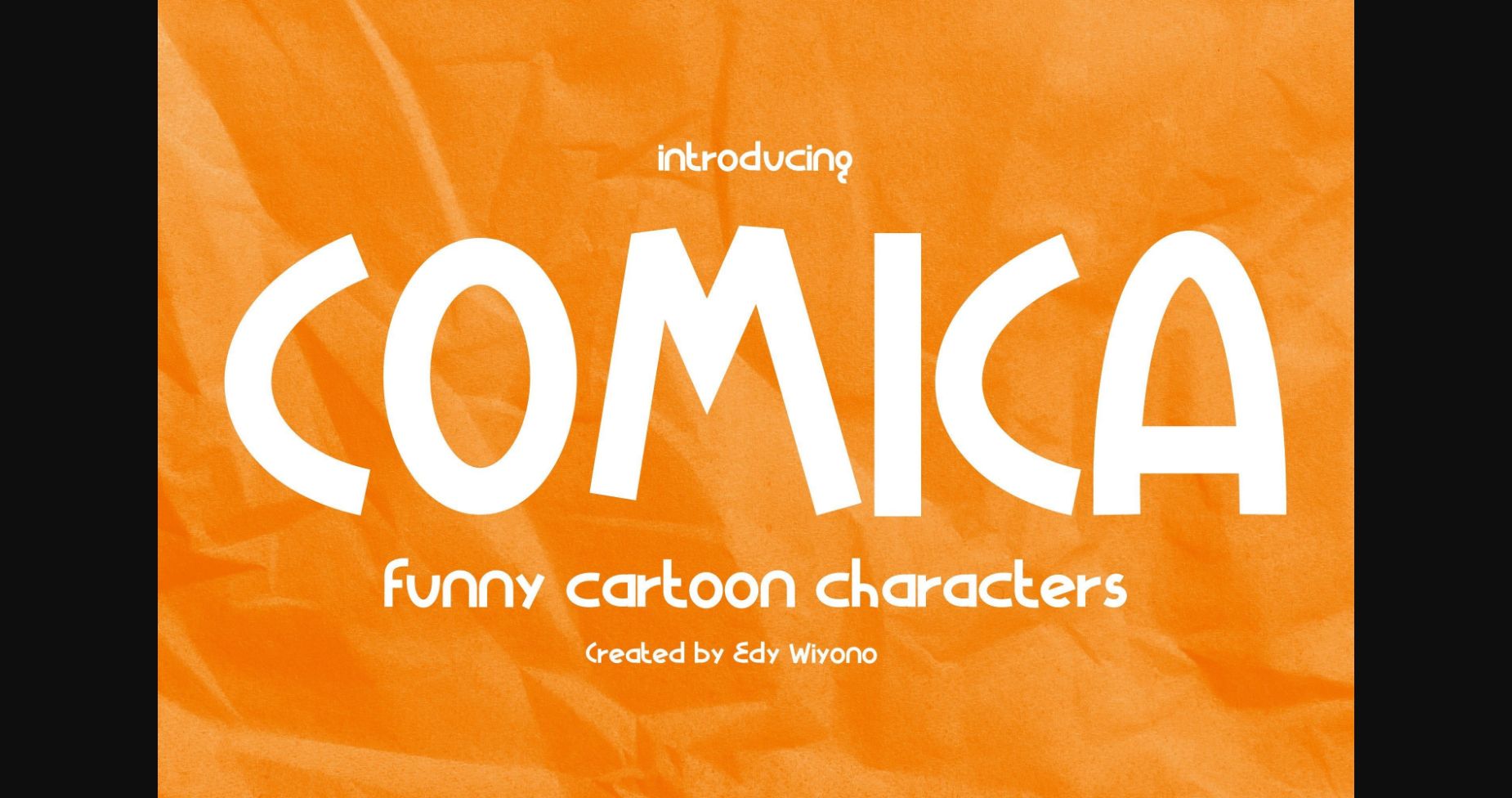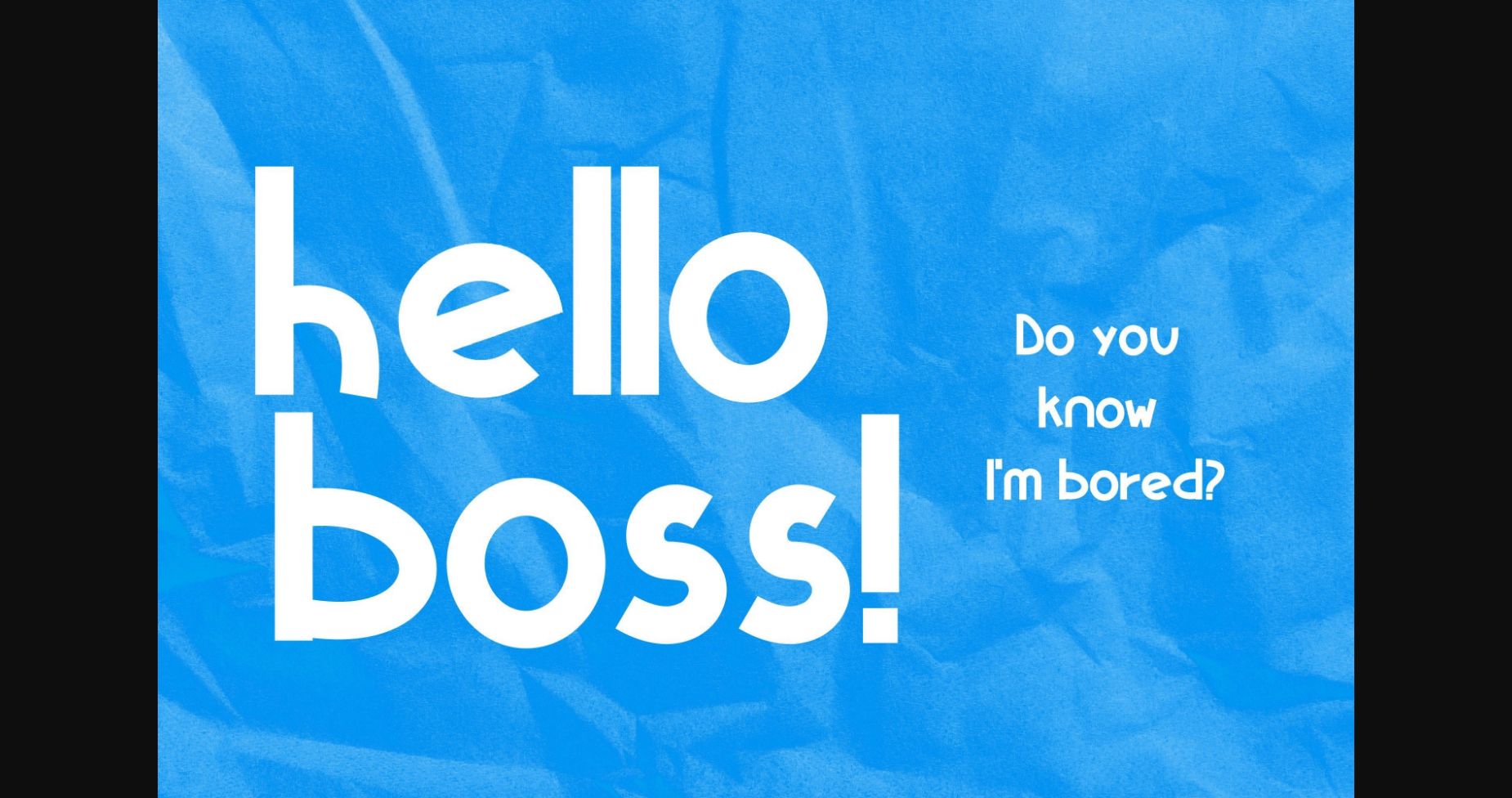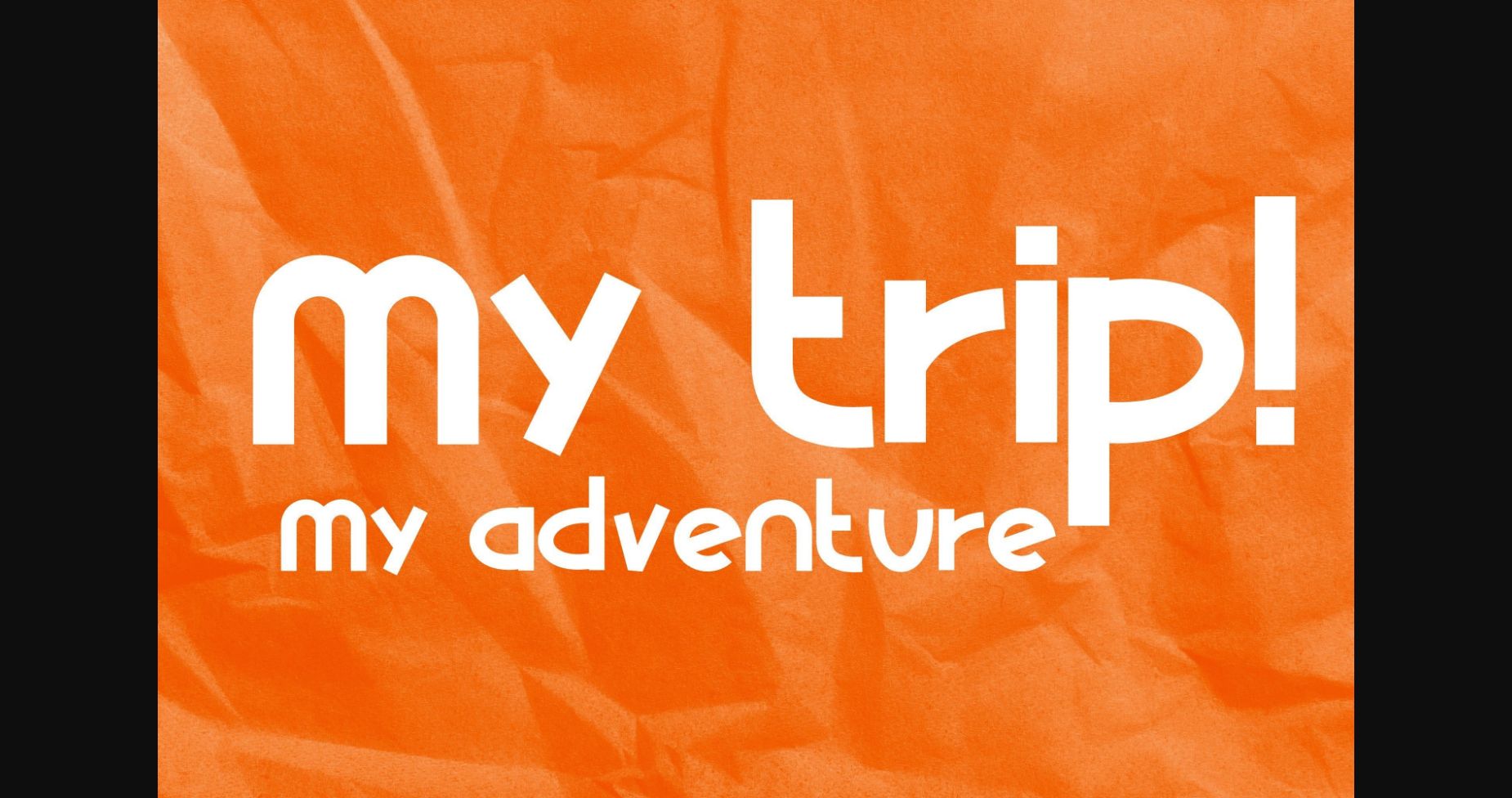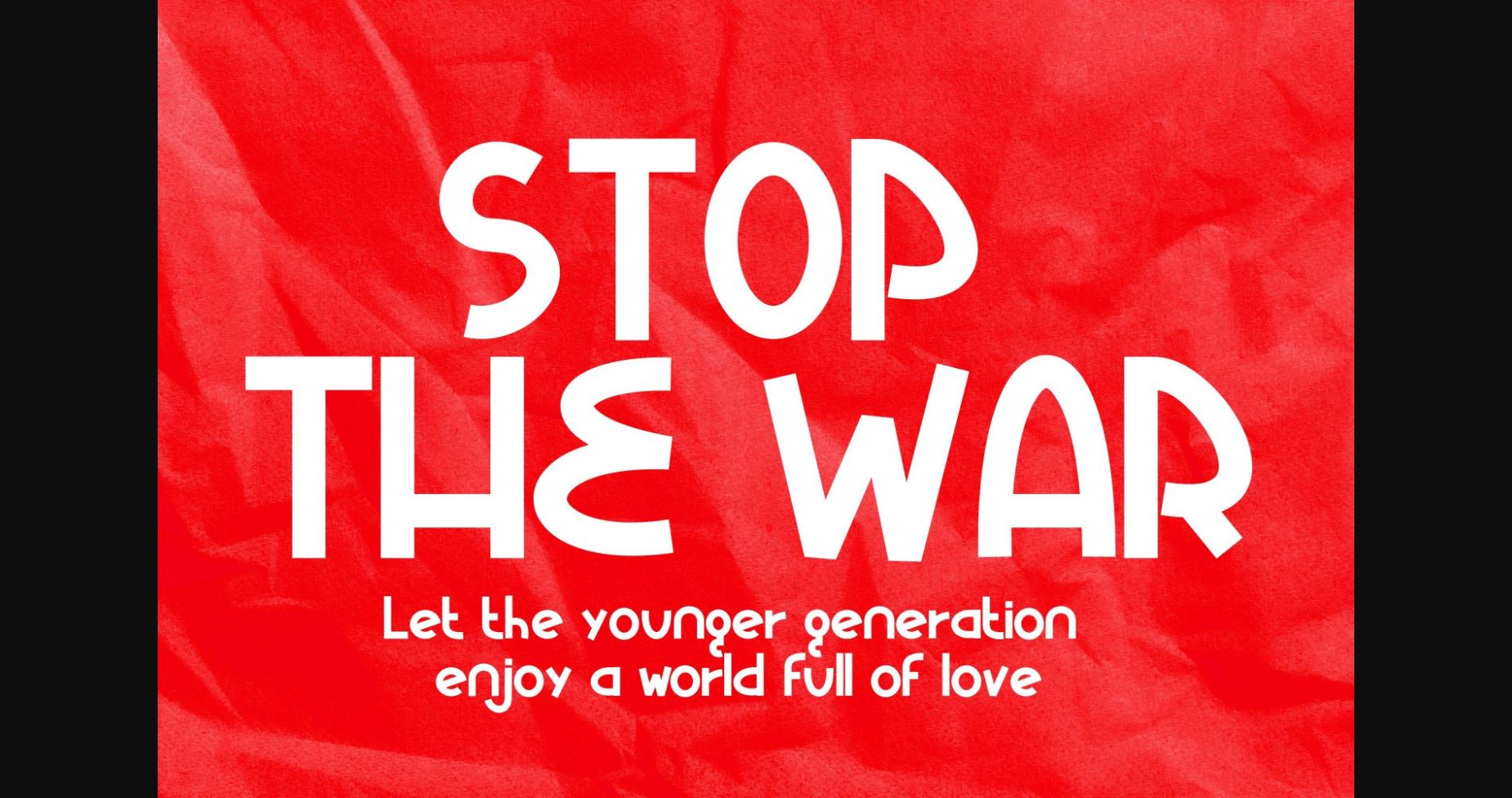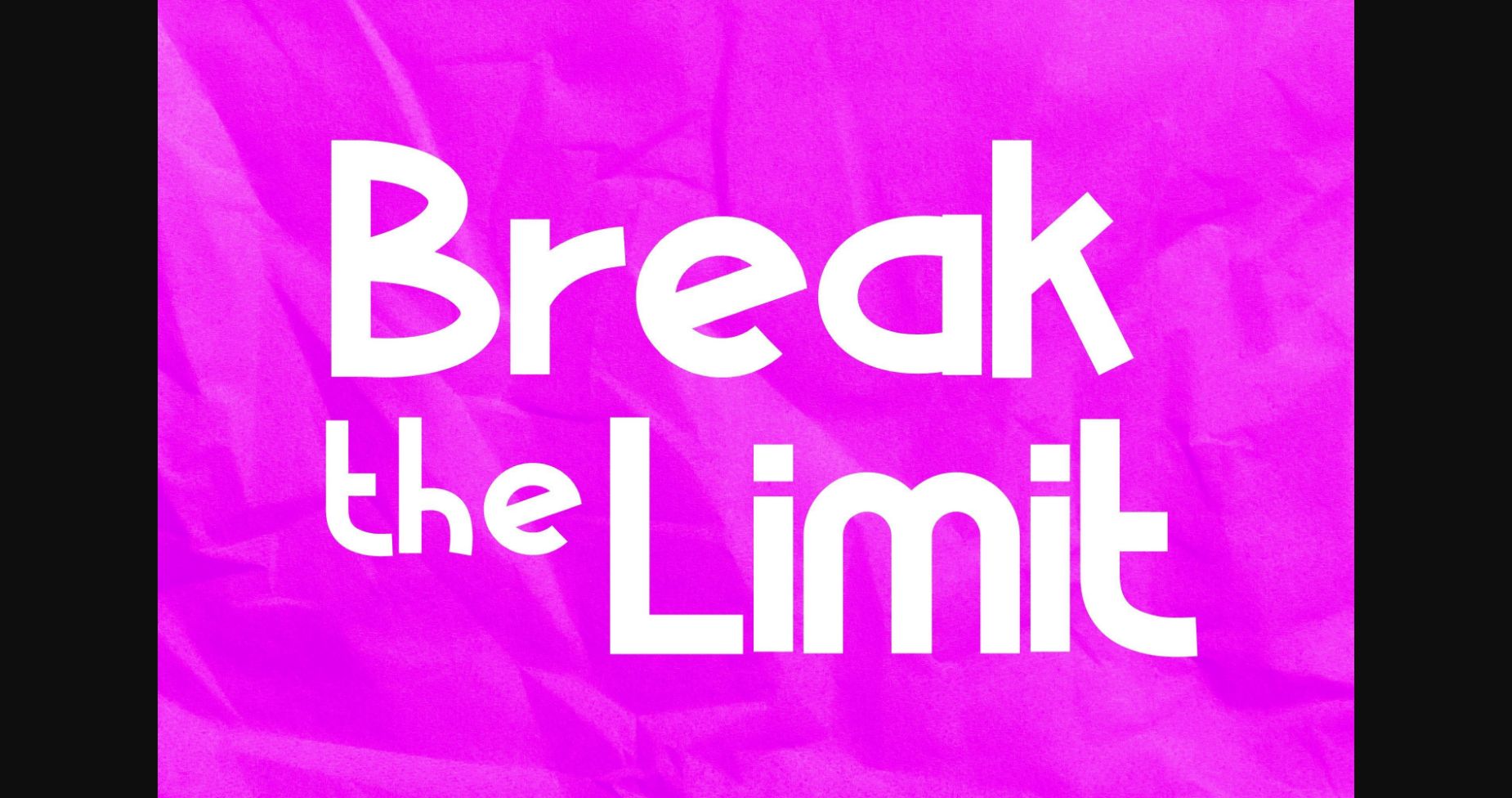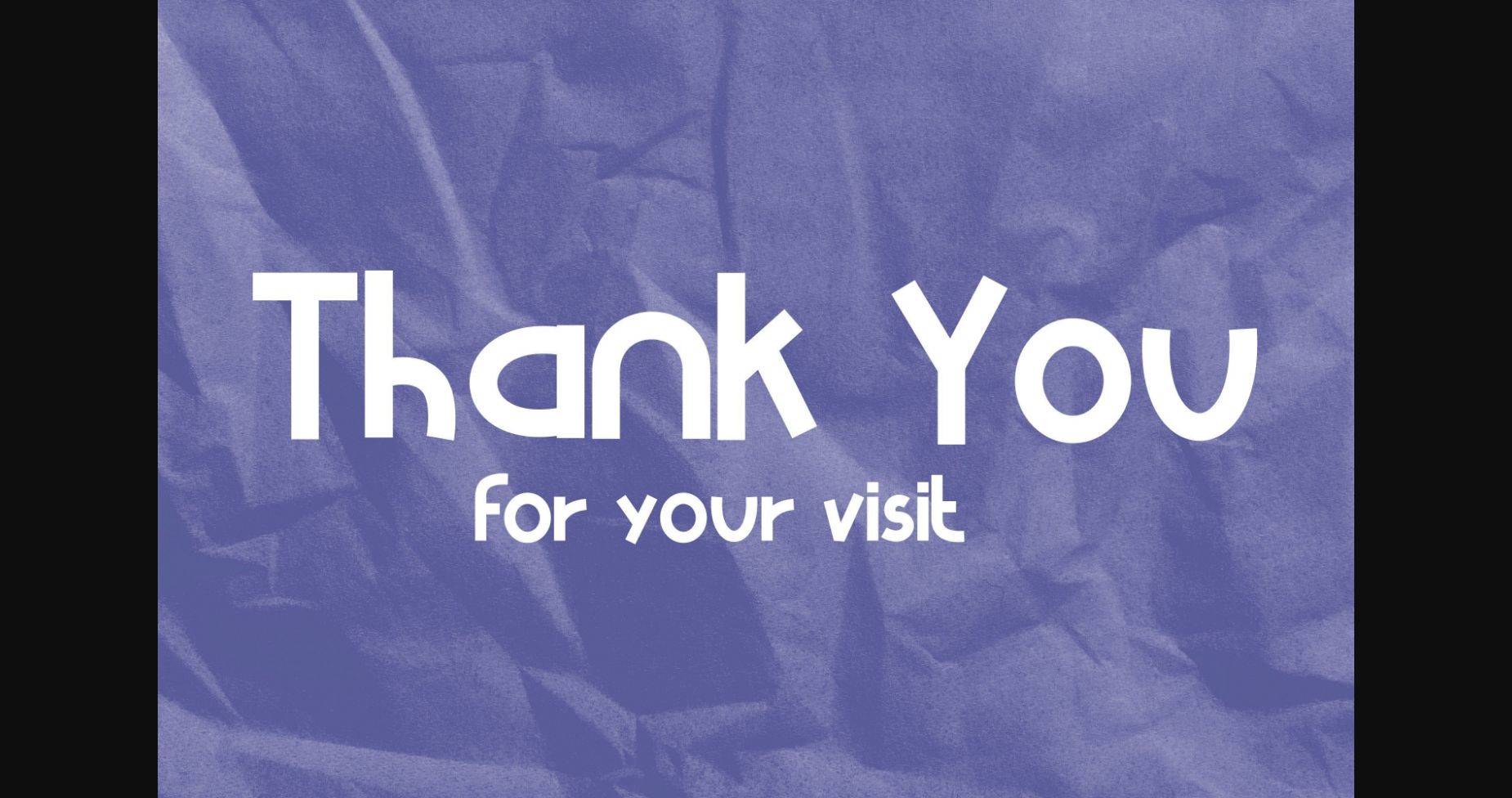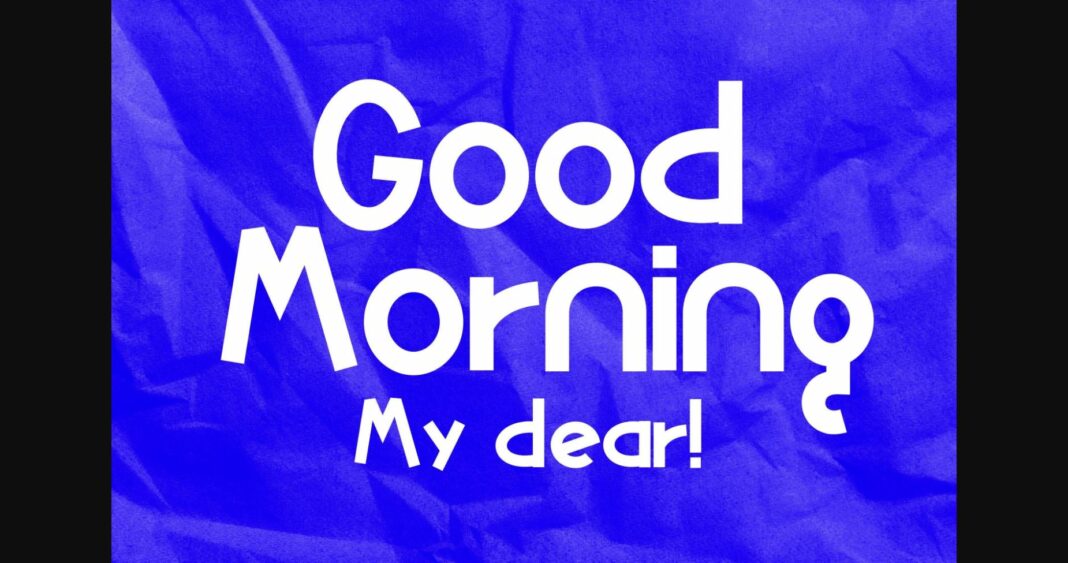
Sans Serif Fonts Comica Font 0 274 FacebookTwitterPinterestWhatsApp 1 of 9 ... Comica Font Poster 2... Comica Font Poster 3... Comica Font Poster 4... Comica Font Poster 5... Comica Font Poster 6... Comica Font Poster 7... Comica Font Poster 8... Comica Font Poster 9... About Comica Font Comica is a font with cute and attractive cartoon characters. This font is very suitable to be applied to business cards, book covers, magazines and other promotional media. This font is perfect for cartoon illustration designs DOWNLOAD NOW